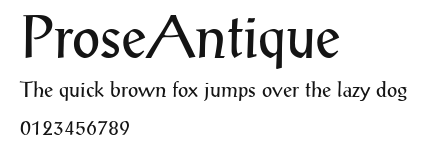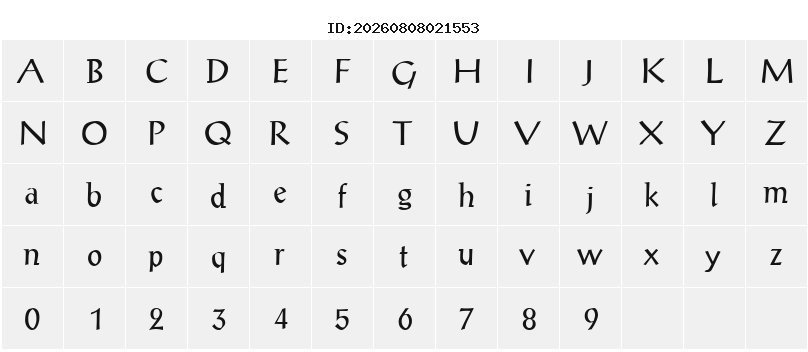
• Font Name: ProseAntique
About ProseAntique.ttf
ProseAntique.ttf is a modern, elegant sans-serif font designed for ultimate readability and visual harmony. Perfect for branding, headlines, web design, and print materials.